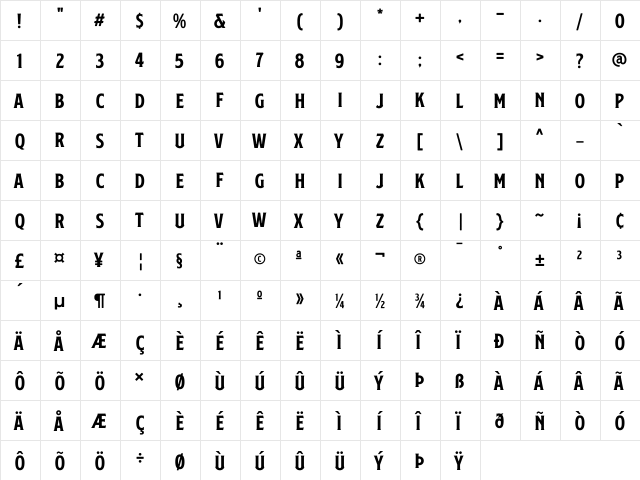
SS Nickson One Regular Font Preview
SS Nickson One Regular
SS Nickson One Regular Font Details
| Foundry | Spencer & Sons Co |
| Designer | Gilang Purnama Jaya |
Design Context for SS Nickson One Typeface
SS Nickson One is a composed and adaptable typeface that performs quietly and consistently across a wide range of design contexts.